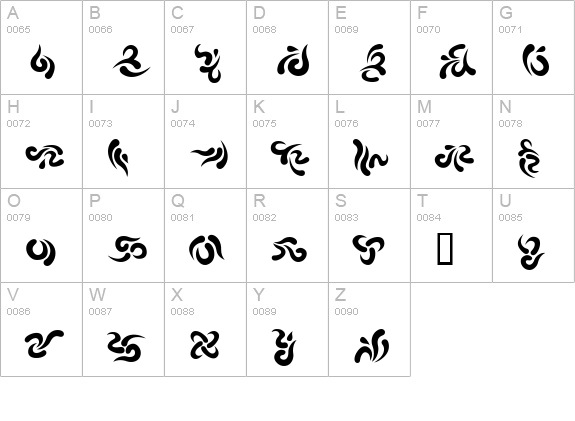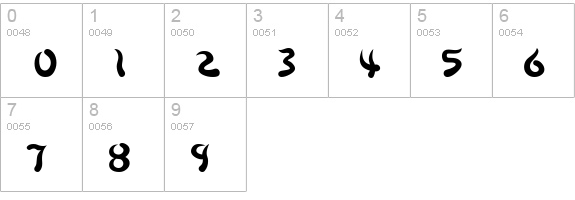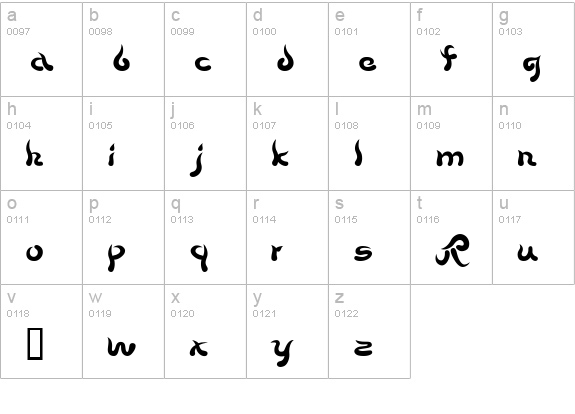
Beech Font Details
Beech font is a charming and elegant typeface that exudes sophistication and modernity. With its sleek lines and stylish curves, Beech is perfect for adding a touch of class to any design project. This versatile font is ideal for a wide range of applications, from branding and marketing materials to invitations and social media graphics. The best part? Beech font is free to download at FontsMarket.com! This means you can easily access this stunning typeface and incorporate it into your creative projects without breaking the bank. Don't miss out on the opportunity to elevate your designs with the timeless beauty of Beech font. Download it today and see the difference it can make in your work.